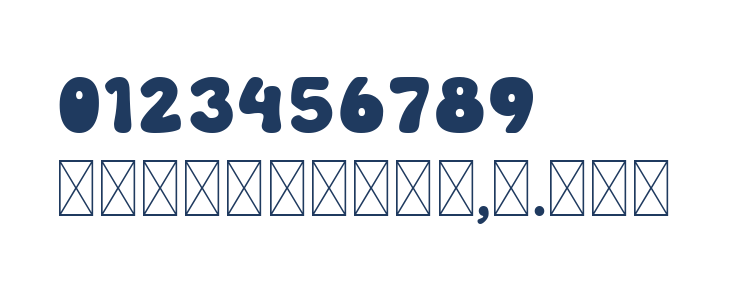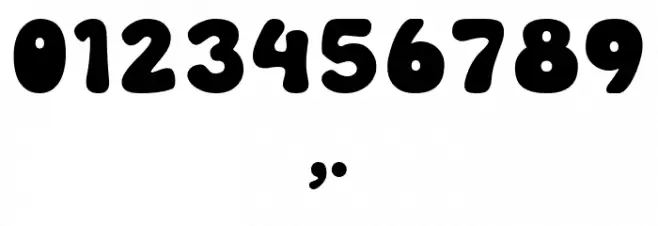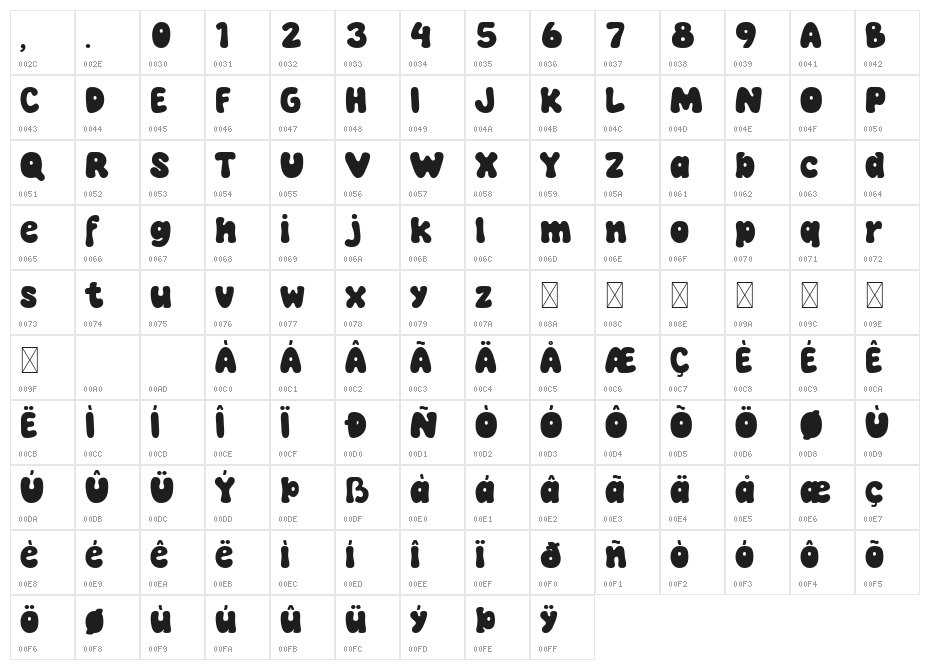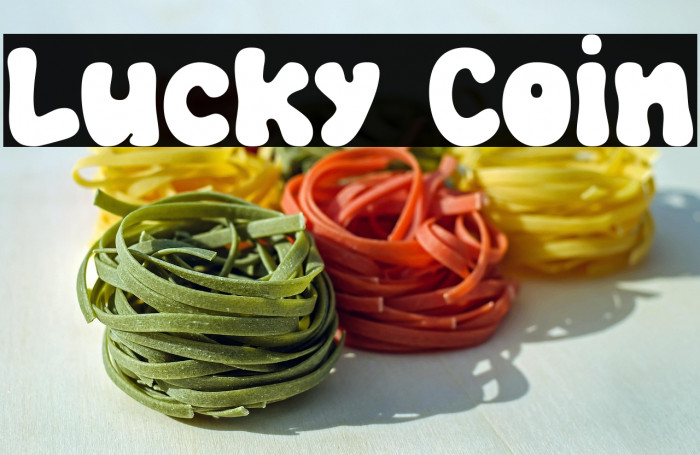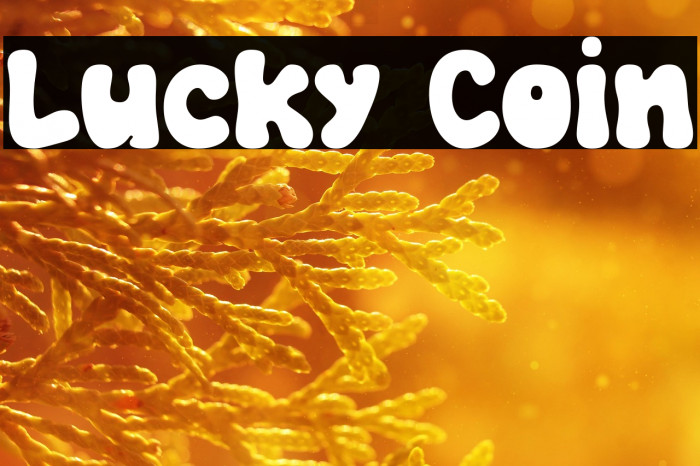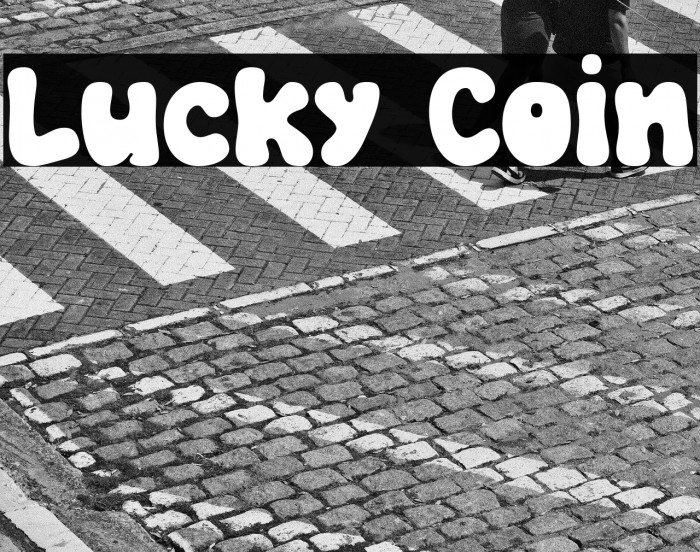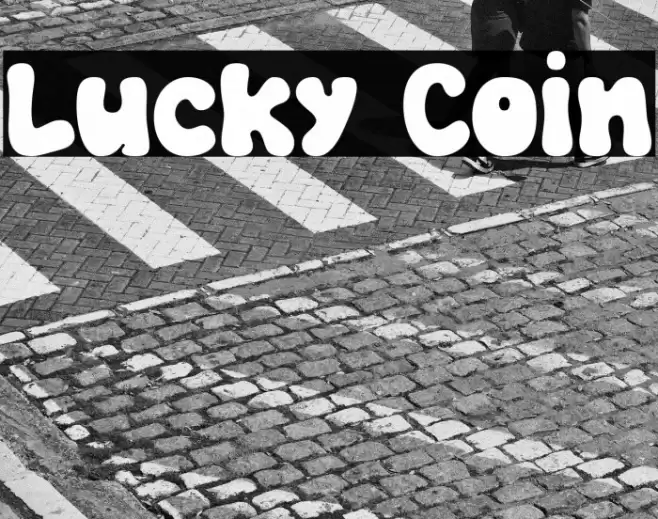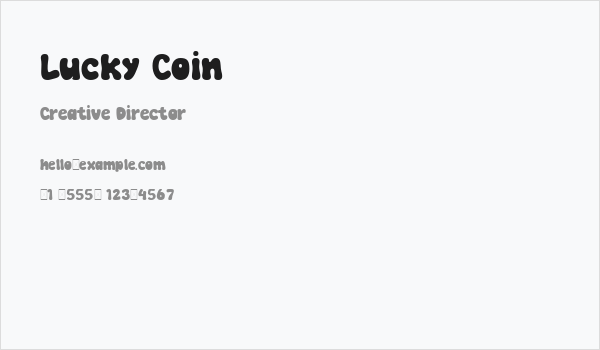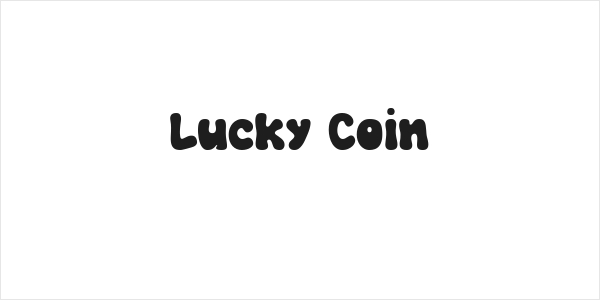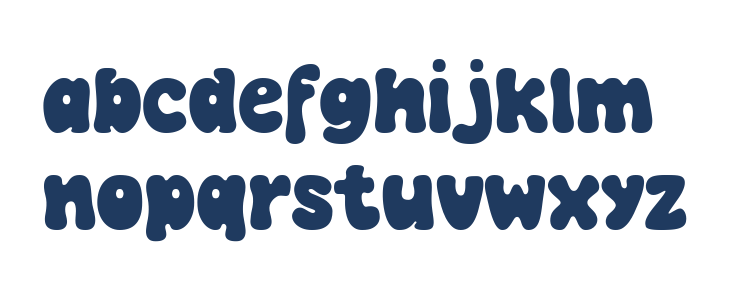
Lucky Coin Font
Lucky Coin Description
This playful and bold font features rounded, bubbly characters that convey a sense of fun and whimsy. The letters are thick and have a consistent weight, creating a strong visual impact. The rounded edges and uniform stroke width give it a friendly and approachable appearance. The font maintains a consistent baseline with slightly exaggerated curves, adding to its playful nature. It is well-suited for designs that aim to capture attention and convey a lighthearted tone.
| Proposed Projects | Ideal for children's books, playful branding, party invitations, and casual social media graphics. |